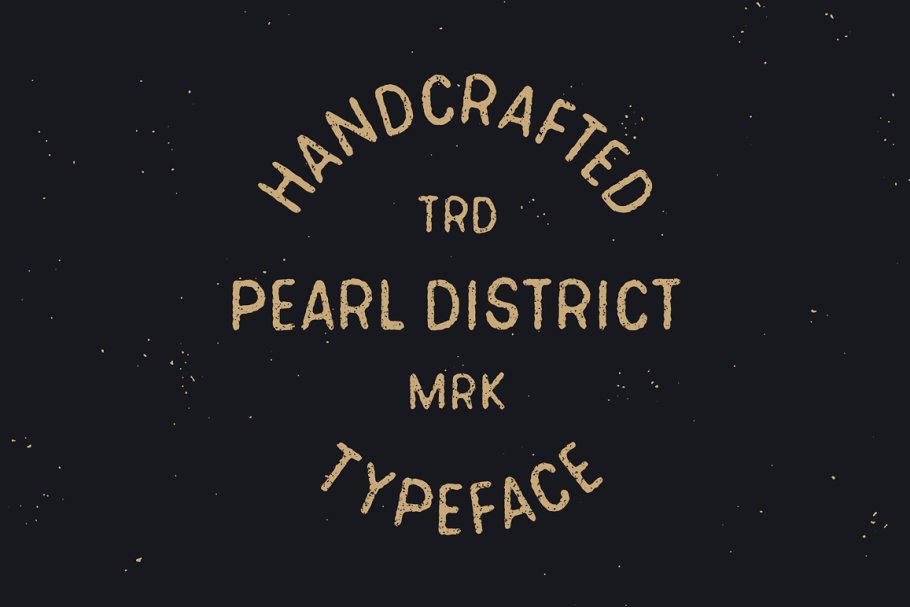
Introducing Pearl District - Hand Drawn Font, the perfect font for anyone looking for a unique and authentic hand-drawn style. Created by James Lafuente, this slightly-condensed display face is packed with character and charm, making it perfect for logos and branding.
Pearl District comes in .TTF format and includes 10 numbers, various glyphs, and all 26 letters of the alphabet. But it's not just the letters that make this font special - it's the attention to detail that James Lafuente has put into each and every character.